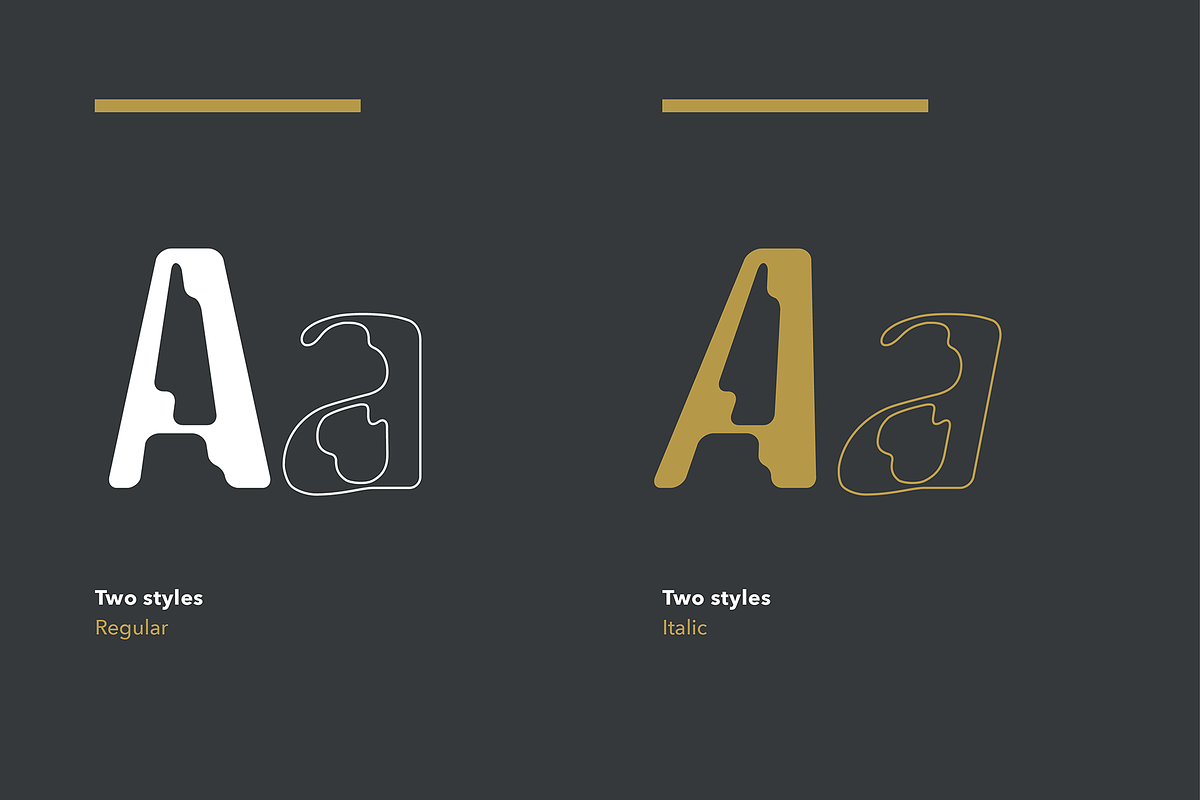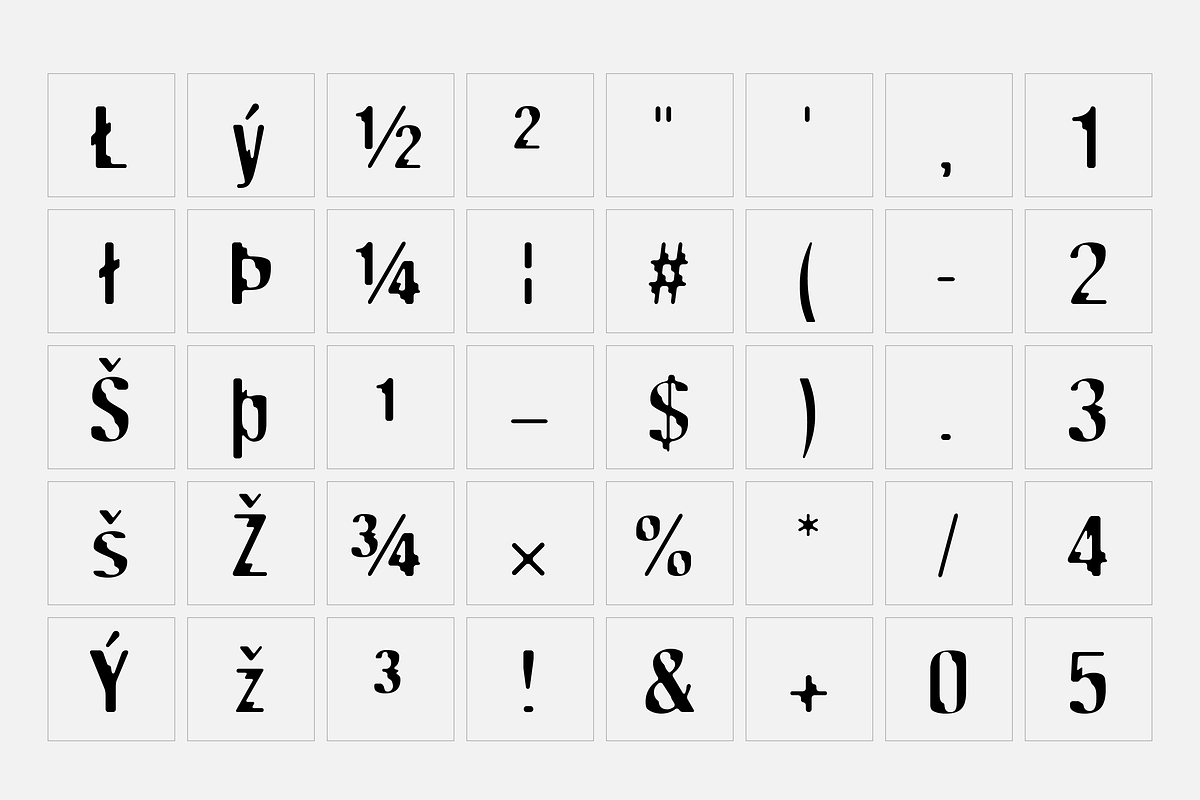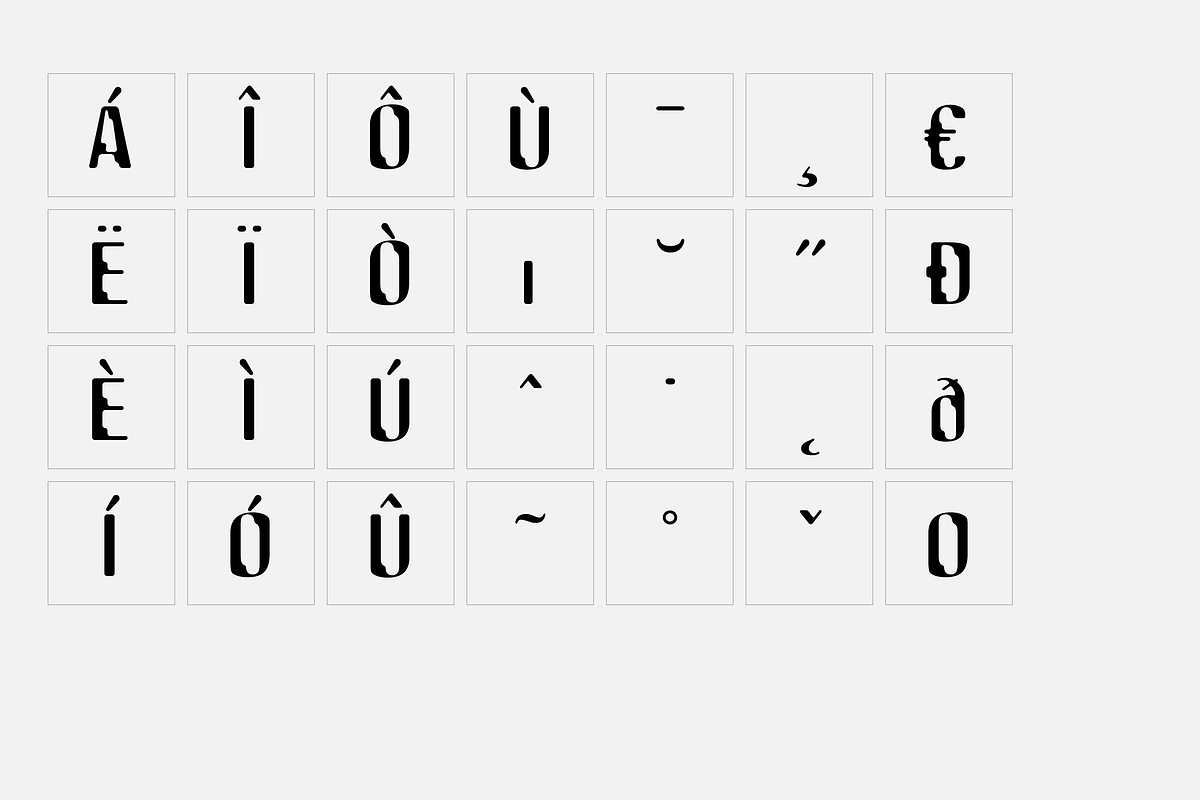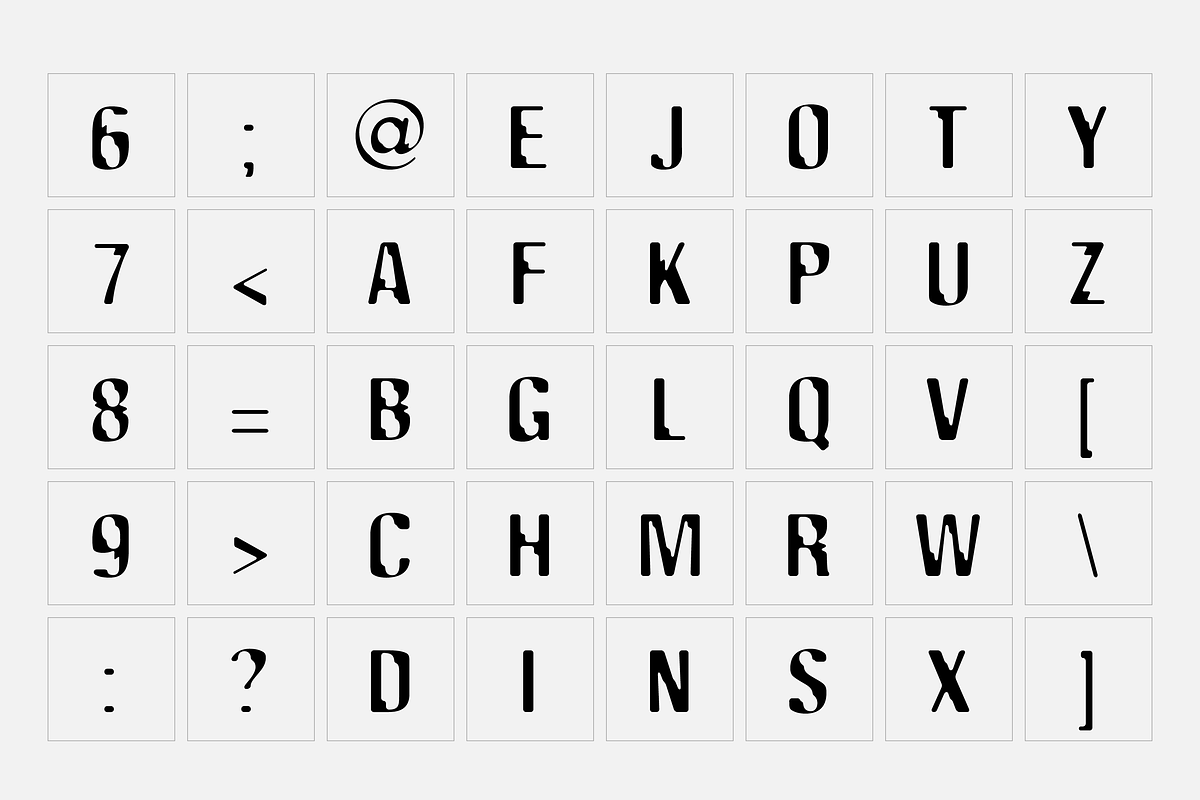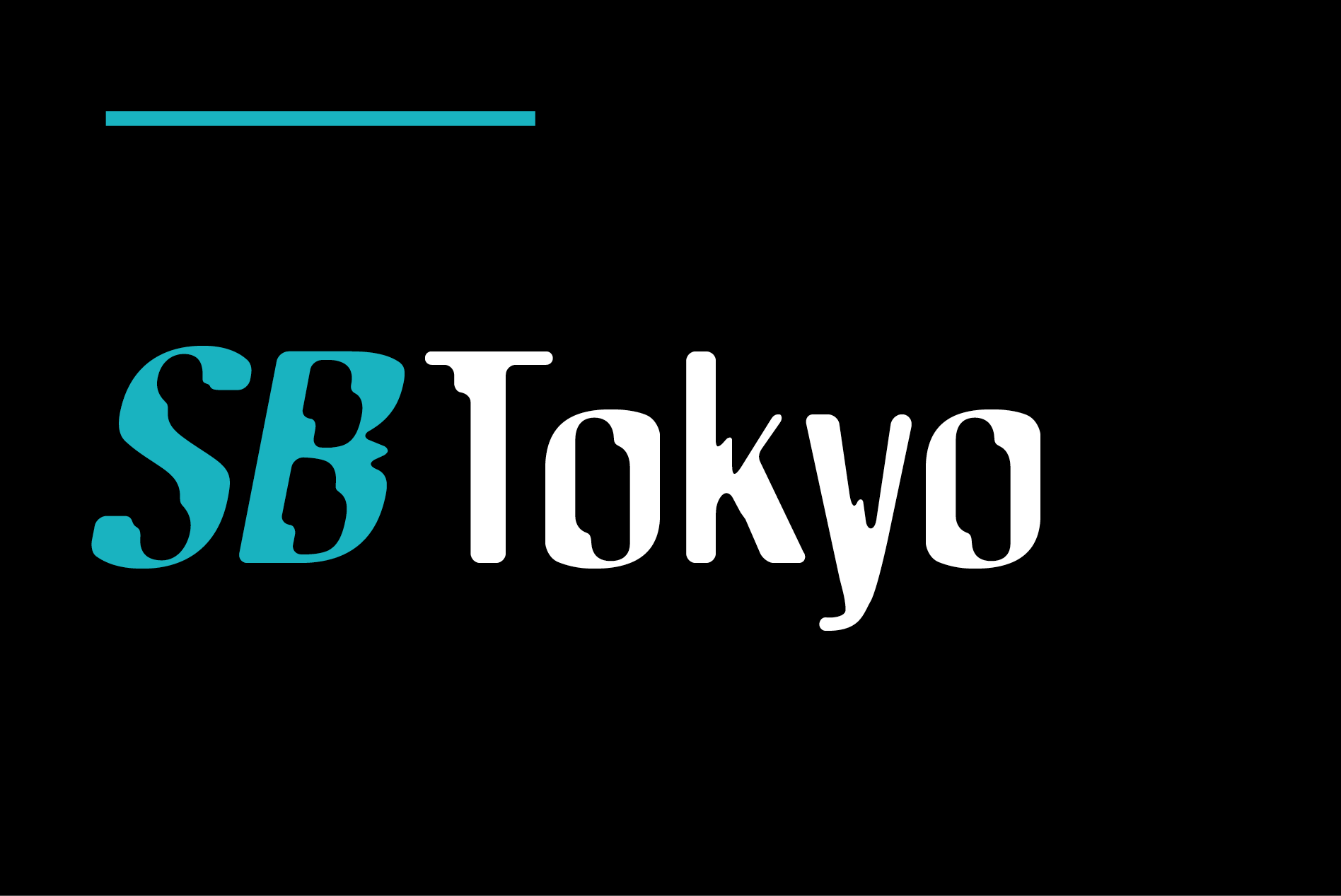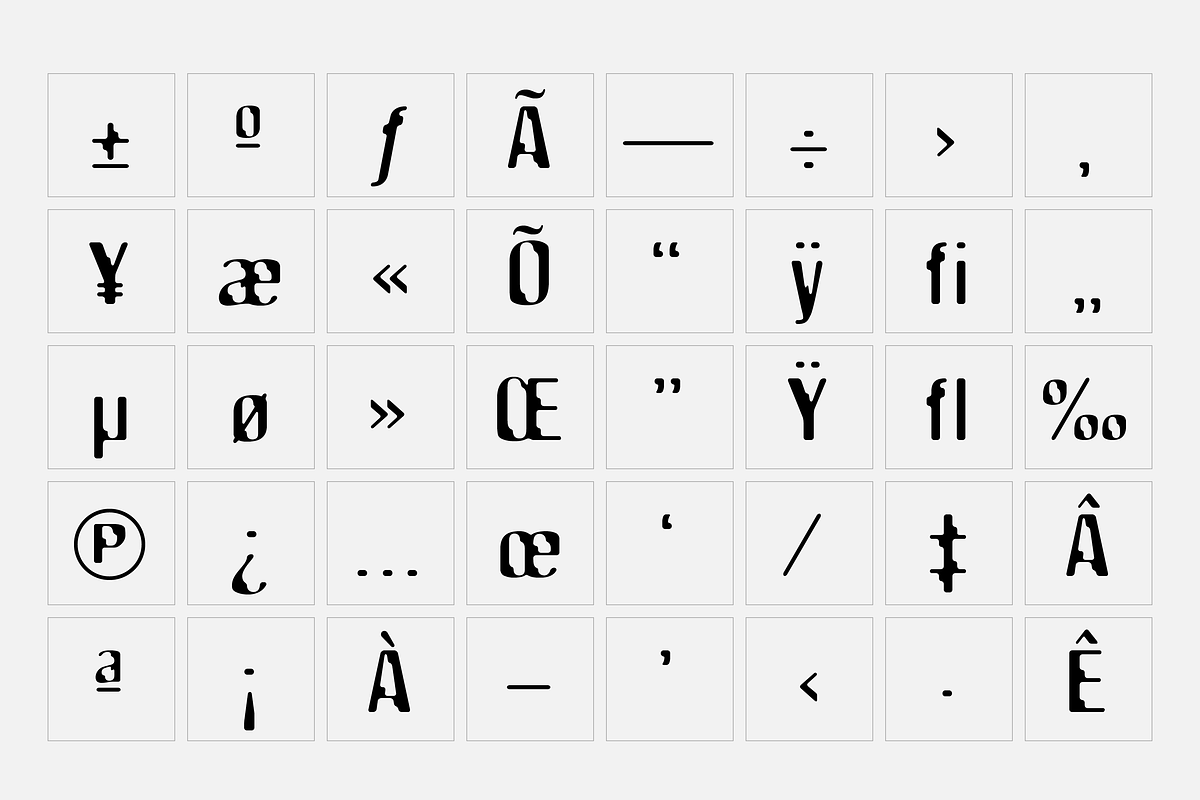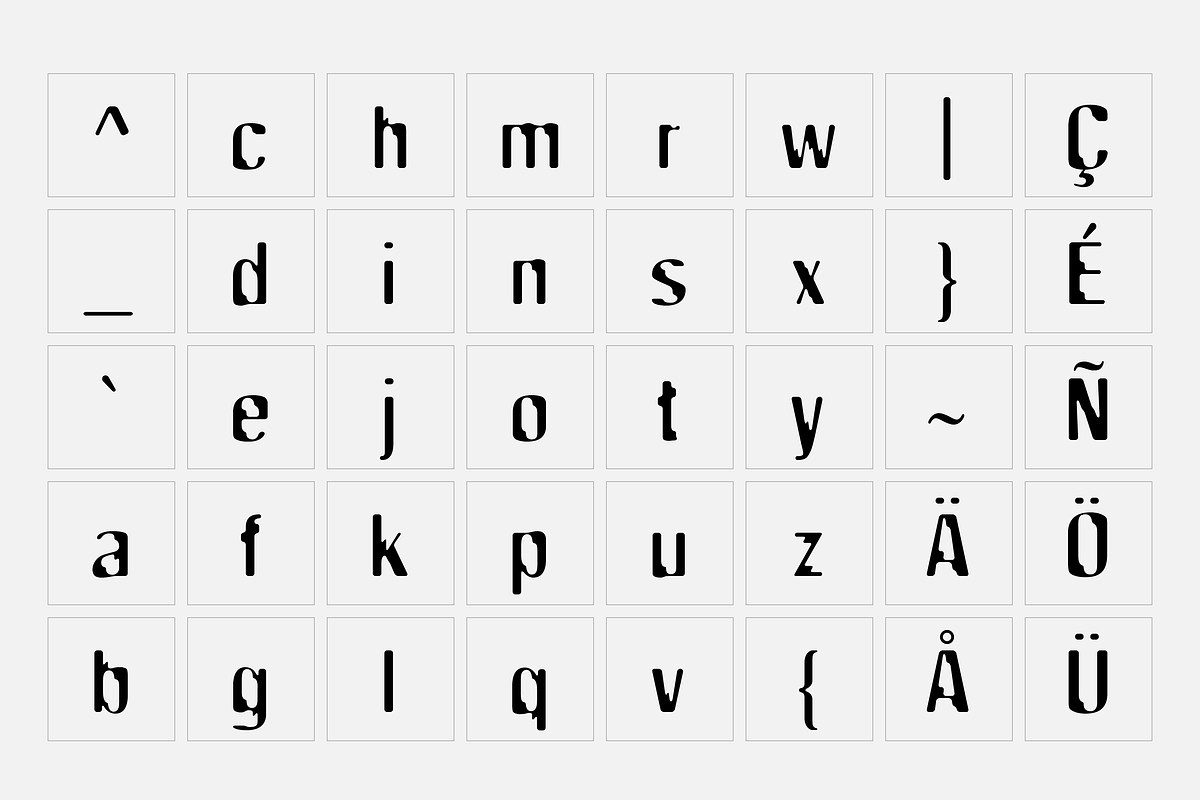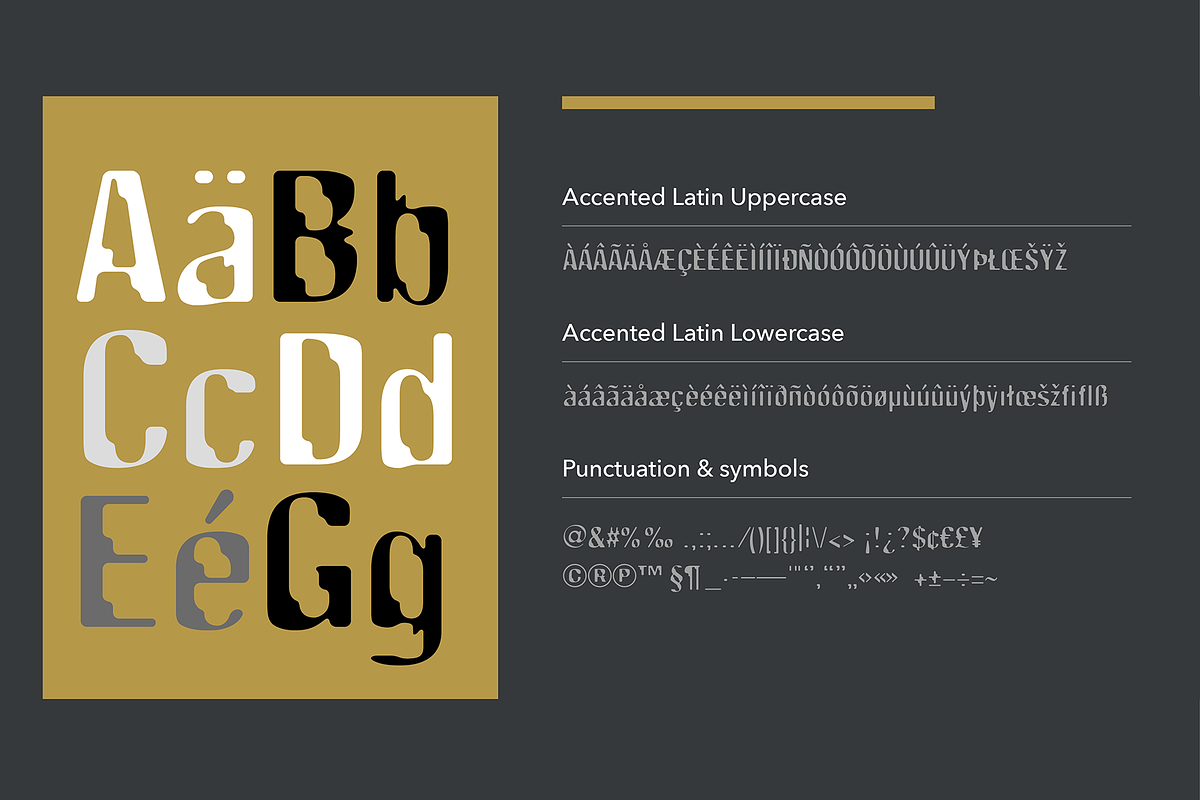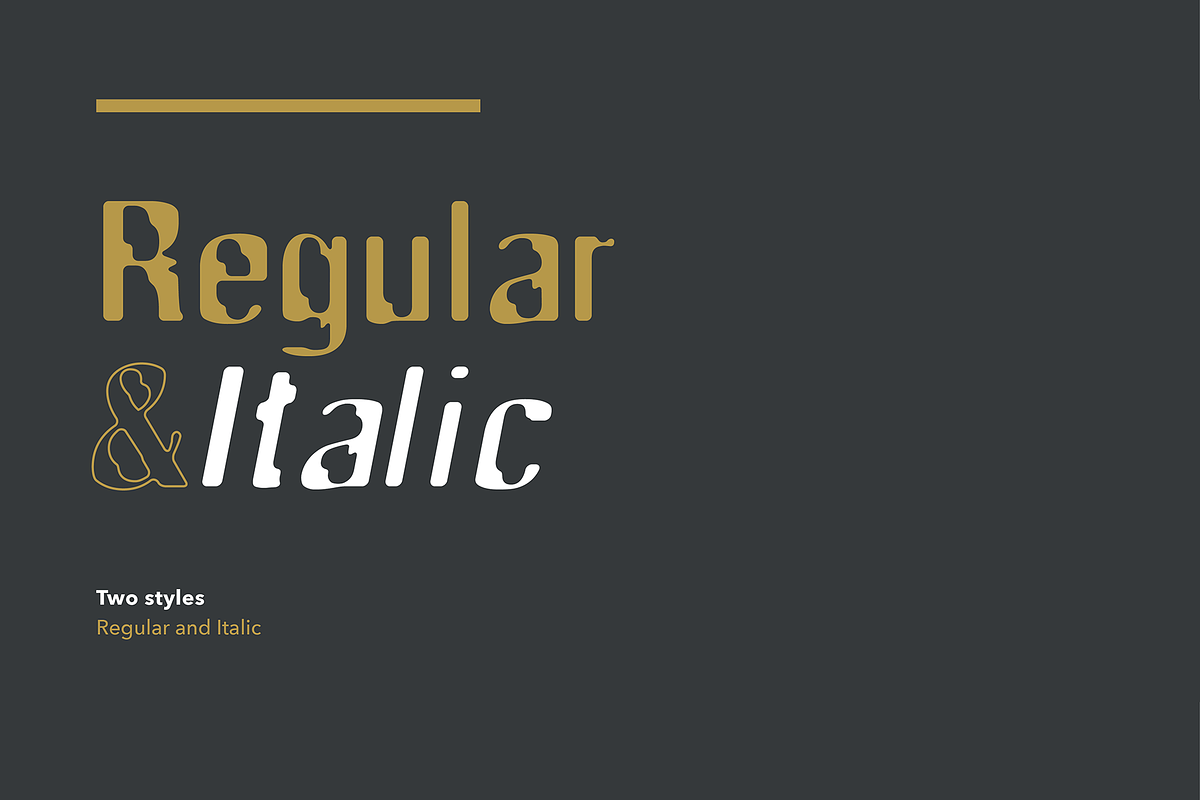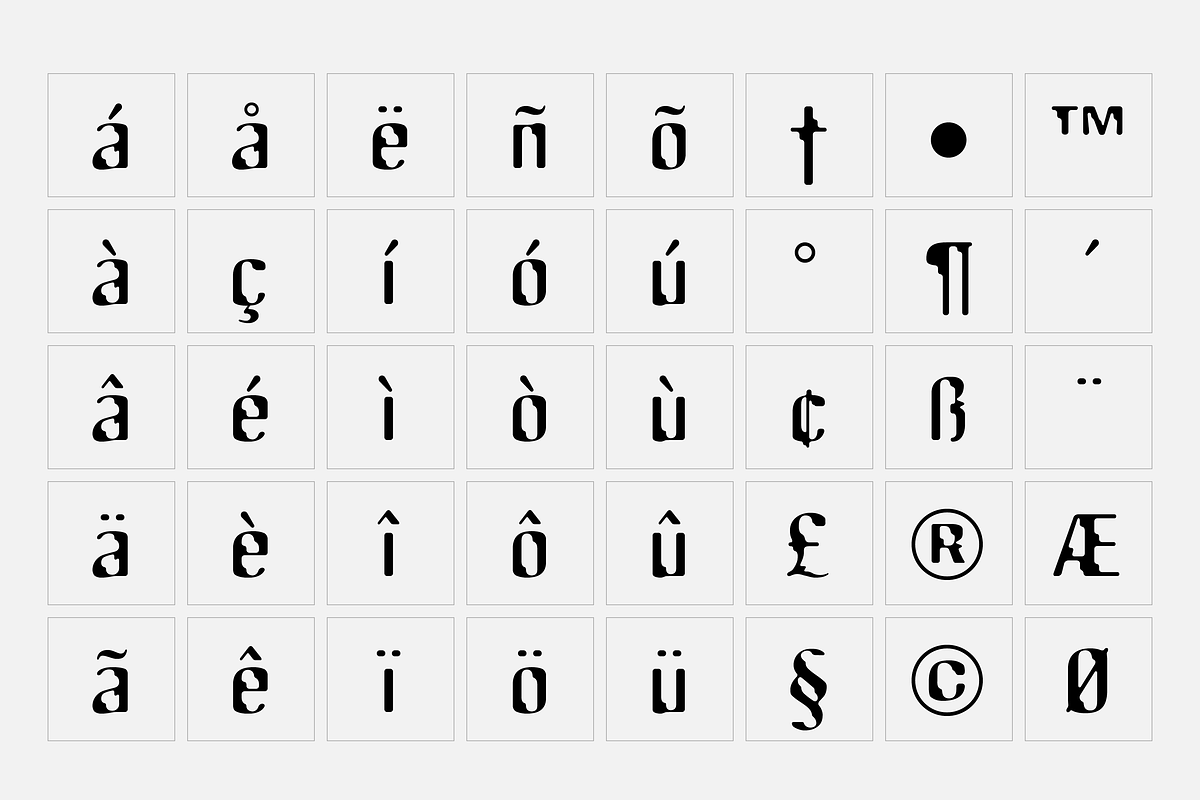
Tokyo - Cyberpunk font
- 2x OpenType fonts: Regular and Italic.
- Alternative capital O glyph.
- Each font contains 232 glyphs.
- Supports 25 languages.
SB Tokyo originated as a piece of display lettering for a project on the theme of analogue photography which was paired with images of Tokyo’s neon light signage. The original piece involved a digitally filtered and blurred double exposure of Helvetica Condensed that had a pleasing combination of irregular, jagged shapes – due to the way the double letterforms intersect with one another – and the smoothing introduced by digital blurring.
After the project was completed, the decision was made to expand it into a full typeface which meant creating a vector outlined version of the type. The result was a display typeface with a nicely optical appearance, snapping between thick and thin while retaining some of the pleasing irregularities introduced in by the image processing. A slanted oblique was added to complement the roman version.
While SB Tokyo could be considered a grunge font due to the processing used in its creation, the end result has a more technological, high-tech feel.